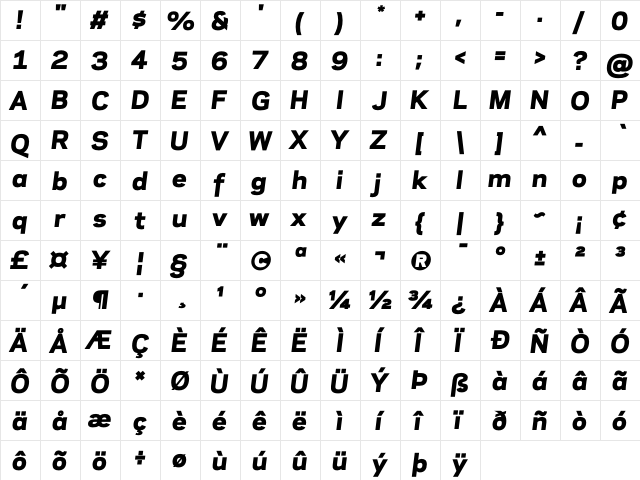
Galaxie Polaris Heavy Italic
Design Context for Galaxie Polaris Typeface
Galaxie Polaris is a composed and adaptable typeface that performs quietly and consistently across a wide range of design contexts. The dynamic lean of this cut emphasises speed and emphasis in any layout.
Pro Tip: Try Galaxie Polaris for annotation and caption copy alongside an upright companion — the contrast in angle creates a dynamic but ordered typographic system.